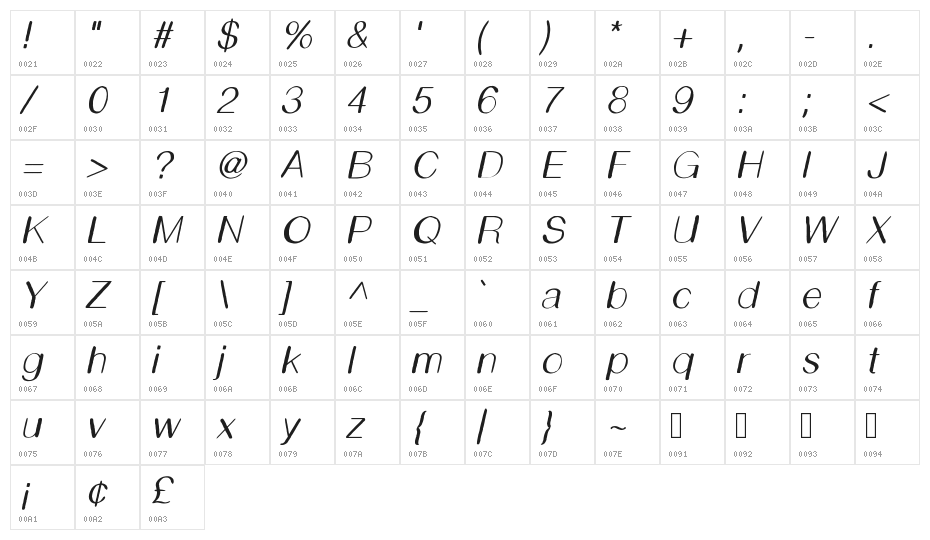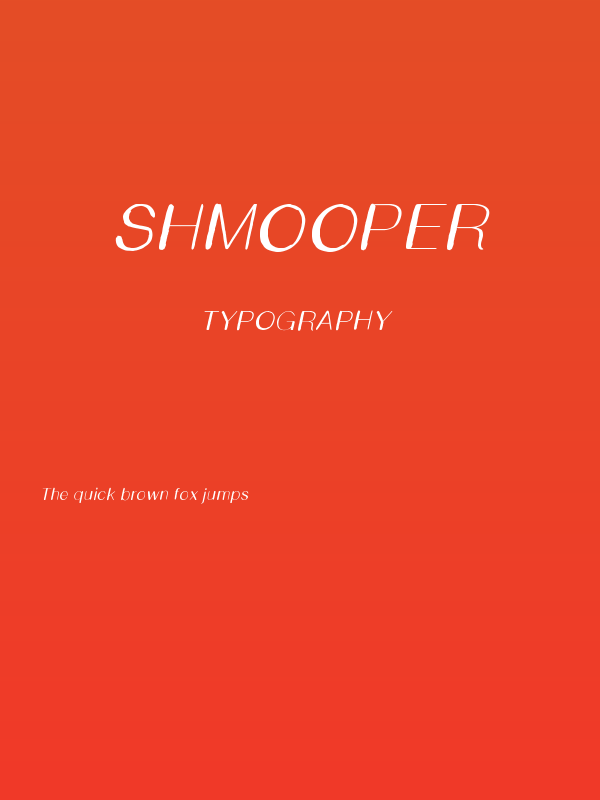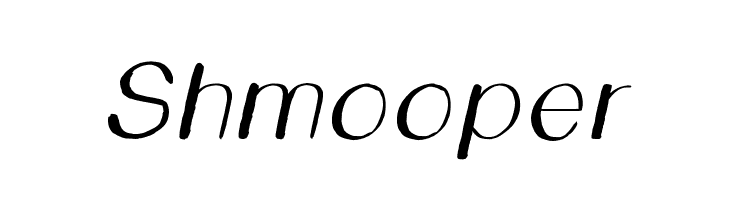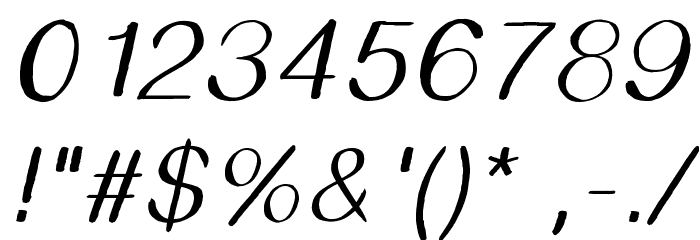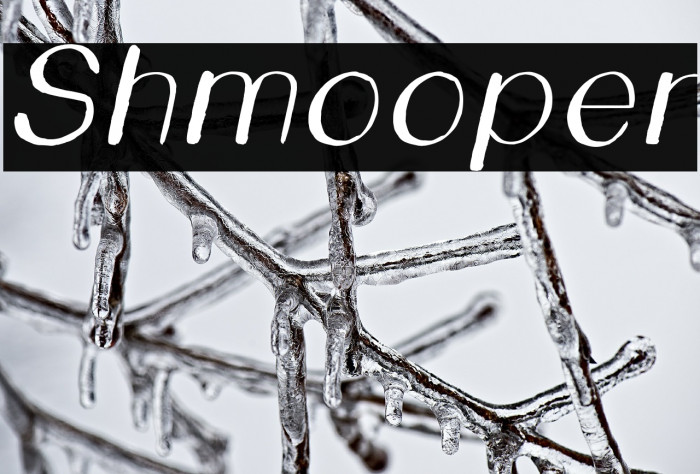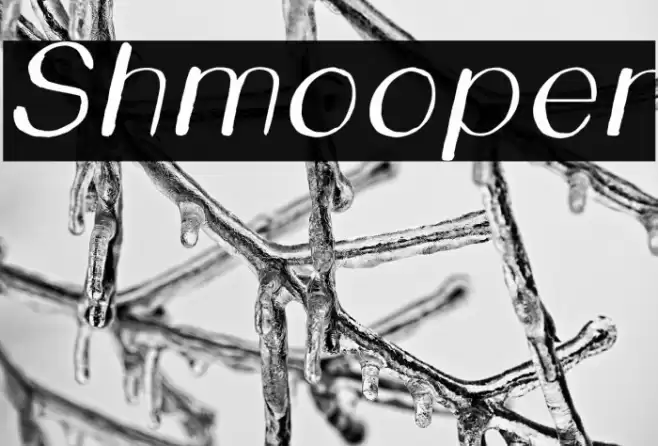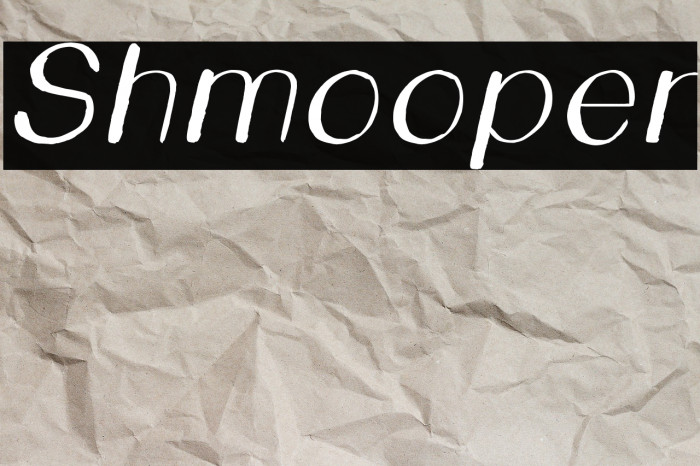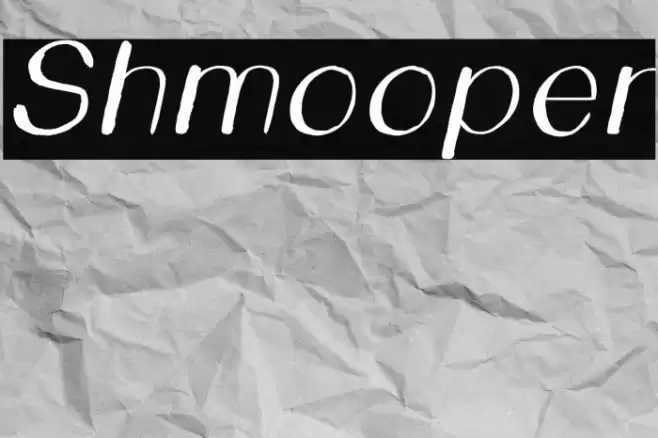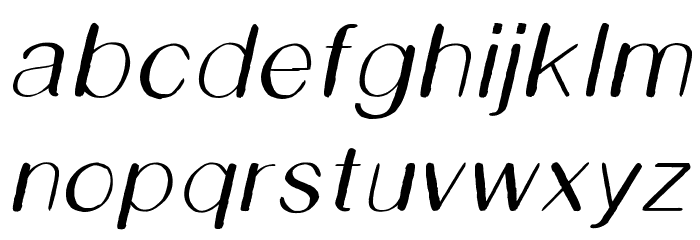
Shmooper Font
| Caz de utilizare | Logos, Headlines, Invitations |
| Proiecte propuse | Ideal for wedding invitations, elegant branding, greeting cards, and upscale packaging design. |